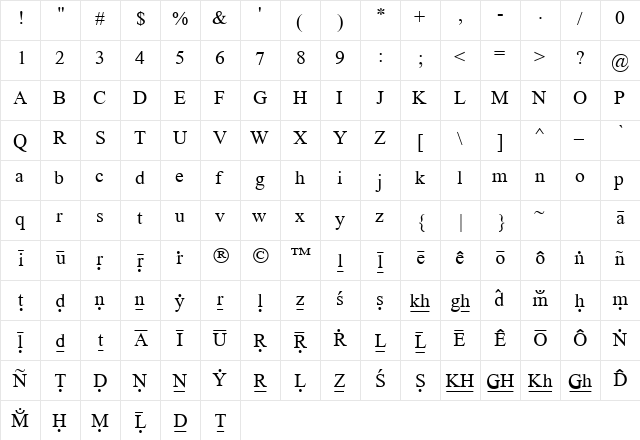
SD1-TTSurekh Normal
Design Context for SD1-TTSurekh Typeface
SD1-TTSurekh is a composed and adaptable typeface that performs quietly and consistently across a wide range of design contexts.